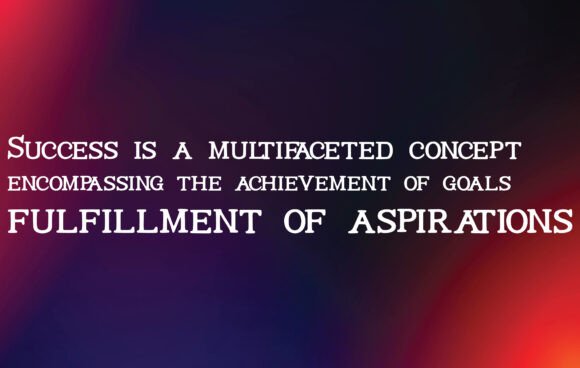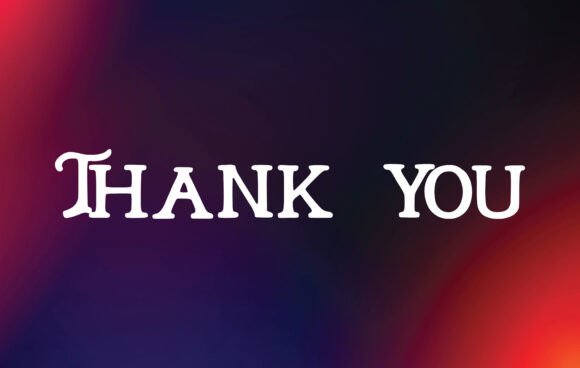
Derek Font: Elevate Your Creative Ideas to New Heights
Are you a designer, craftsperson, or simply someone who loves to express themselves through creative projects? Look no further than the Derek font, a stunning and versatile typeface that can help take your ideas to the next level. With its unique blend of style and sophistication, Derek is the perfect choice for creating eye-catching logos, branding, and quotes that will leave a lasting impression.
The Beauty of Derek Font
Derek font is a lovely and beautiful font that boasts a distinctive character. Its elegant lines, curves, and shapes make it a joy to use in a wide range of creative projects. Whether you’re designing a logo, creating a brand identity, or crafting a quote, Derek font is sure to add a touch of class and sophistication. Its beauty lies in its simplicity, making it easy to read and understand, while also being visually striking.
Unleash Your Creativity with Derek Font
Derek font has the potential to unlock your full creative potential. Its versatility and flexibility make it an excellent choice for a wide range of projects, from print materials like brochures and business cards to digital applications like social media graphics and website headers. With Derek font, you can experiment with different styles, colors, and textures to create something truly unique and eye-catching.
Why Choose Derek Font?
So, why choose Derek font over other typefaces? Here are just a few reasons why Derek stands out from the crowd:
- Unique character: Derek font has a distinctive character that sets it apart from other fonts. Its elegant lines and curves make it a joy to use in a wide range of creative projects.
- Versatility: Derek font is incredibly versatile, making it suitable for use in a wide range of projects, from logos and branding to quotes and social media graphics.
- Ease of use: Despite its sophisticated appearance, Derek font is surprisingly easy to use, even for those who are new to design.
- High-quality: Derek font is a high-quality typeface that is designed to produce crisp, clear text, even at small sizes.
Using Derek Font for Logos and Branding
One of the most popular uses for Derek font is in creating logos and branding materials. Its unique character and versatility make it an excellent choice for businesses and organizations looking to create a strong visual identity. Here are a few tips for using Derek font in your logo and branding projects:
- Keep it simple: While Derek font is a decorative font, it’s still essential to keep your logo design simple and easy to read.
- Experiment with colors: Derek font looks great in a wide range of colors, so don’t be afraid to experiment and find the perfect hue for your brand.
- Consider texture and gradients: Adding texture and gradients to your logo can help make it stand out and give it a more premium feel.
Creating Eye-Catching Quotes with Derek Font
Another popular use for Derek font is in creating eye-catching quotes for social media, blogs, and other digital applications. Here are a few tips for using Derek font in your quote designs:
- Choose a bold color: Derek font looks great in bold, bright colors, which can help make your quote stand out on social media.
- Add a background image: Adding a background image or texture can help give your quote depth and visual interest.
- Experiment with layout: Don’t be afraid to experiment with different layouts and arrangements to create a visually striking quote.
In conclusion, Derek font is a stunning and versatile typeface that can help take your creative ideas to new heights. Its unique character, versatility, and ease of use make it an excellent choice for designers, craftspersons, and anyone looking to create eye-catching logos, branding, and quotes. Whether you’re a seasoned designer or just starting out, Derek font is definitely worth checking out.